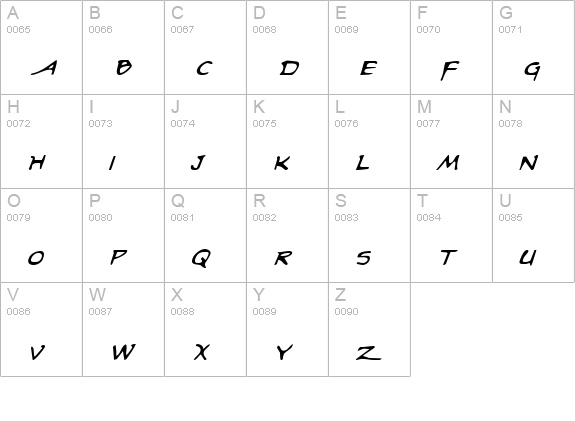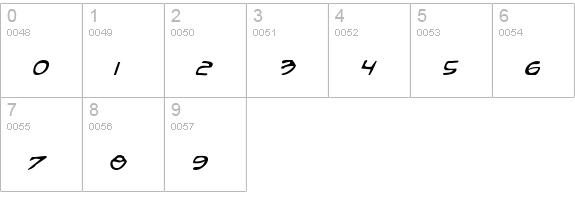
Arilon Italic is a distinctive, italic variant in the Arilon typeface family \xE2\x80\x94 well suited to design and typography projects.
Arilon Italic font exudes elegance and sophistication with its sleek and modern design. The flowing italic style adds a touch of flair to any text, making it perfect for adding a touch of sophistication to your projects. Whether you're designing invitations, branding materials, or editorial content, Arilon Italic will bring a touch of class to your work. And the best part? Arilon Italic font is completely free to download at FontsMarket.com. This means you can elevate your designs without breaking the bank. So why wait? Download Arilon Italic today and add a touch of elegance to your projects.